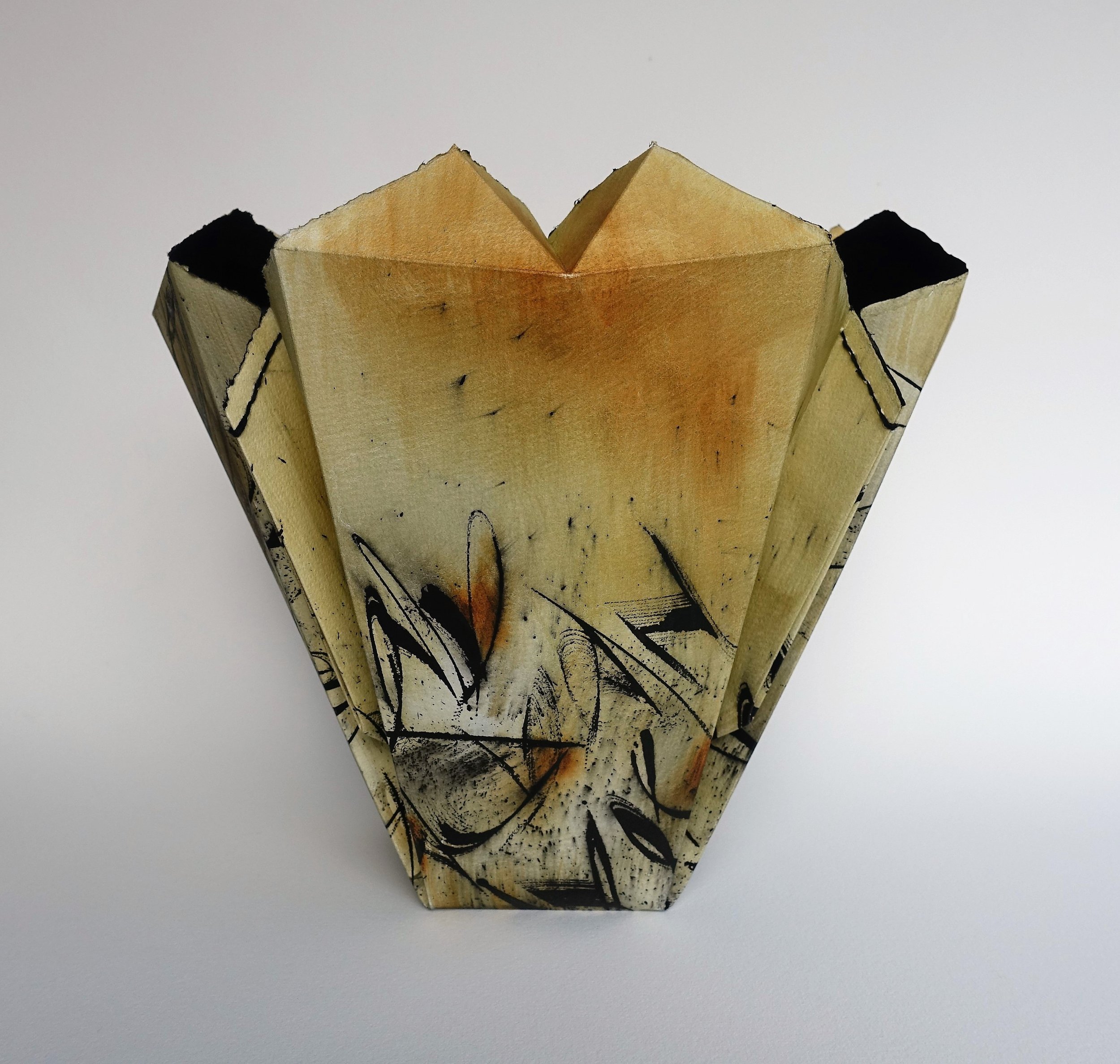
AN VAN HENTENRJIK | Excitement
ARTIST | An Vanhentenrjik
BASED IN | Belgium
TITLE | Excitement
SIZE | 240 x 280 x 85 mm
This bowl was inspired by idea of excitement in life, both the positive and the negative. The text is an extract from the song: "What’s so funny ‘bout peace, love and understanding" by Nick Lowe. The text was written in sumi ink on white zerkal paper. Then the outside is coloured with acrylic ink and the inside with sumi ink. The bowl is sewn to keep its shape.
MEDIUM | Zerkal paper, sumi ink, acrylic ink
An Vanhentenrjik started calligraphy in 1988/1989, and became a professional calligrapher in 1996. She has been teaching calligraphy for 30 years, an occupation which she loves. Through this, she has impacted the development of calligraphy in the Flanders. In 2001, she created her first paper bowl, and has not stopped making these iconic, collectible pieces. In 2007, she designed the organic Kalliandra script, written with the pointed pen. In 2018, she won the prestigious calligraphy competition ‘De Grote prijs Kalligrafie 2018 in Westerlo/Belgium’. In 2023, An created the Juliette script and named it after her daughter. In recent years, An is focusing on her personal calligraphy work and hopes to create more alphabets. In recent years she has exhibited several times in Belgium. Her works were also published in calligraphy magazines such as Scriptores, Letter Arts Review, and The Edge (UK). Many of her works are owned by museums and private collectors.